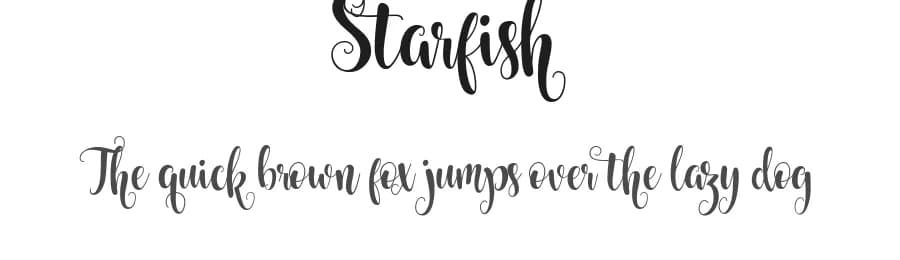
About Starfish Font
STARFISH
Starfish ships with 3 OpenType features you can switch on in apps that support them (Illustrator, InDesign, Affinity, Figma, CSS font-feature-settings).
Starfish Font is a script font that shines as a display or heading face. Pair it with a clean sans-serif or serif font for body text β the contrast creates a clear hierarchy while the two styles stay balanced and easy to read.
Starfish Font
by Francis Studio / Pendesal Studio